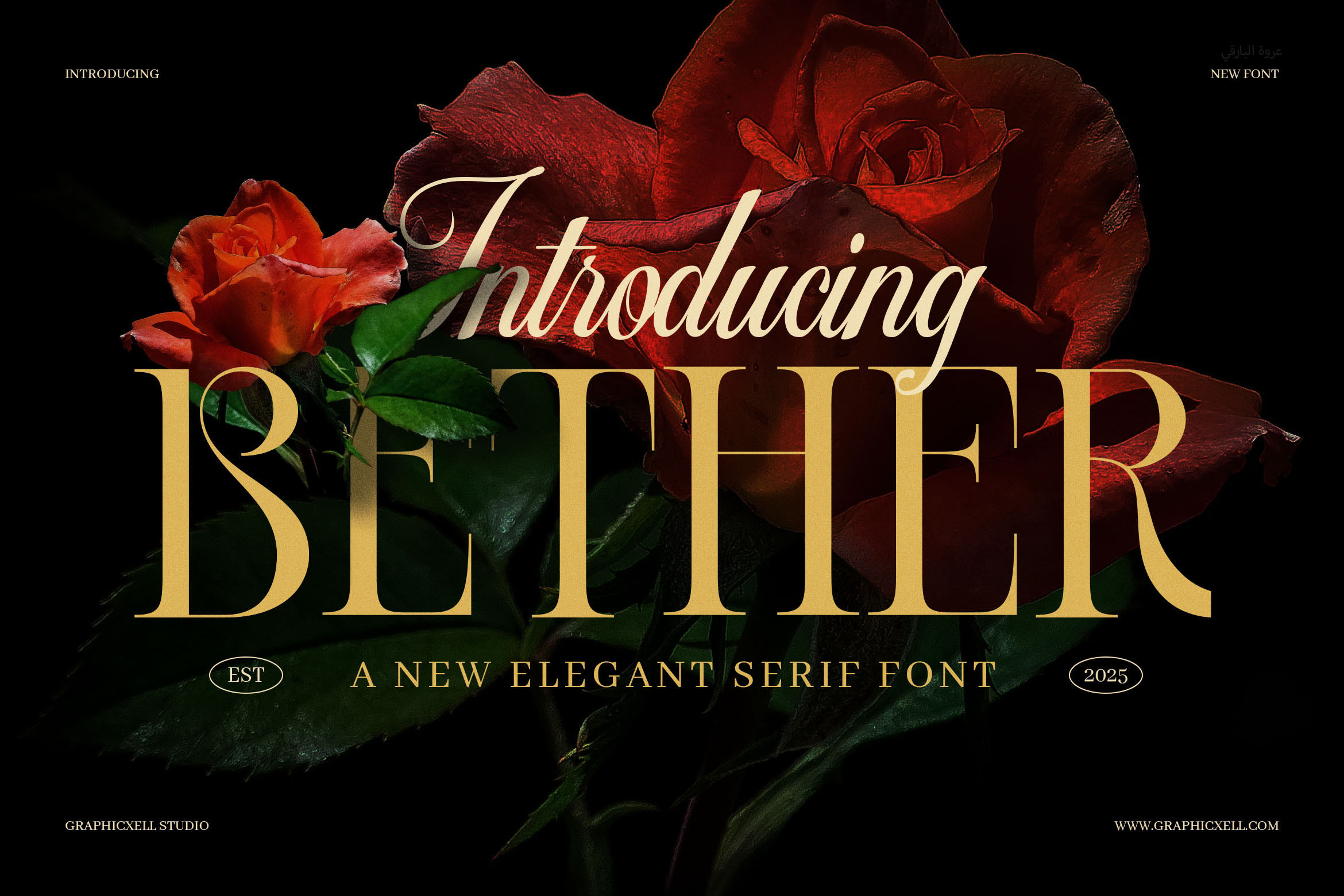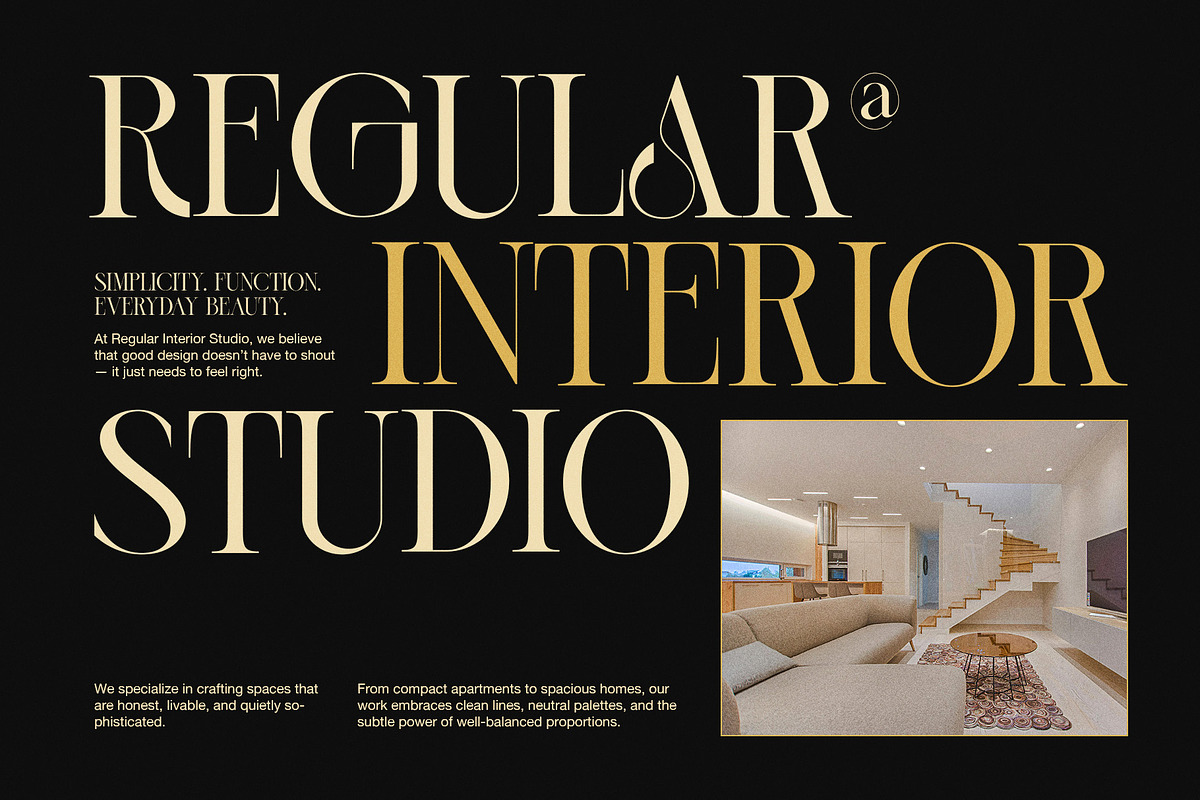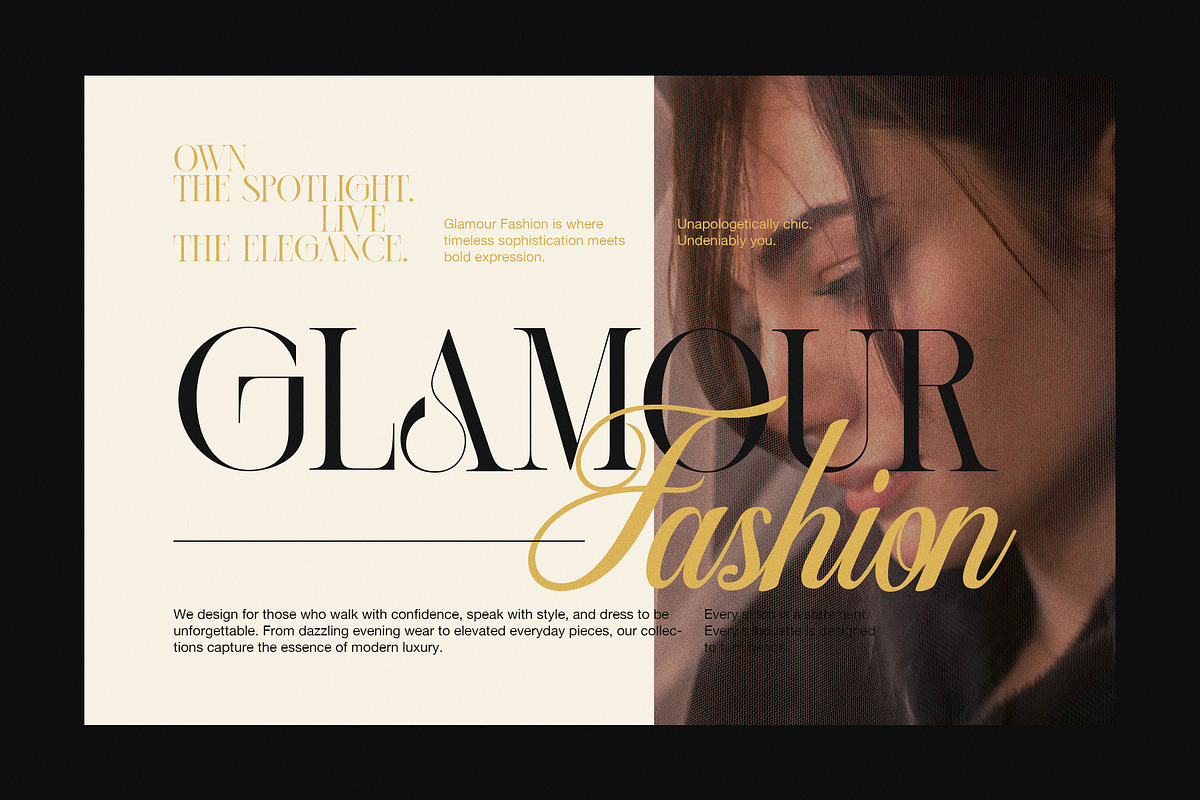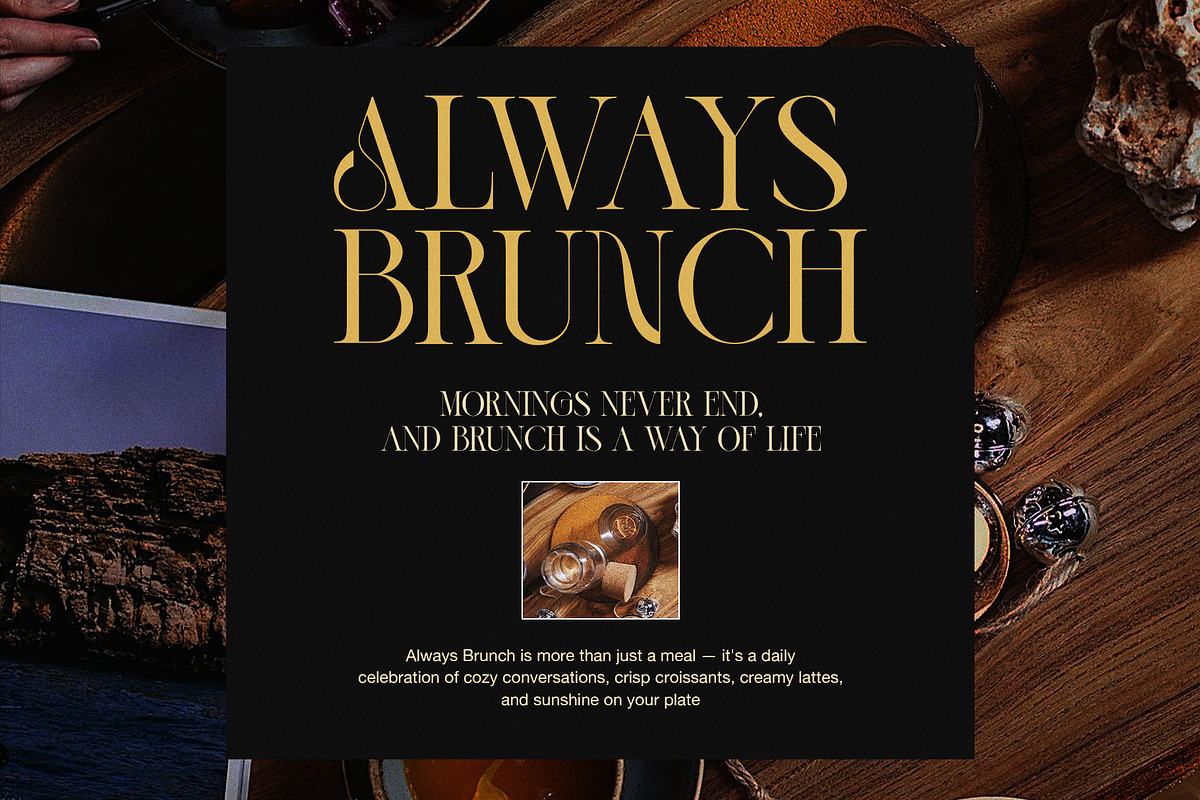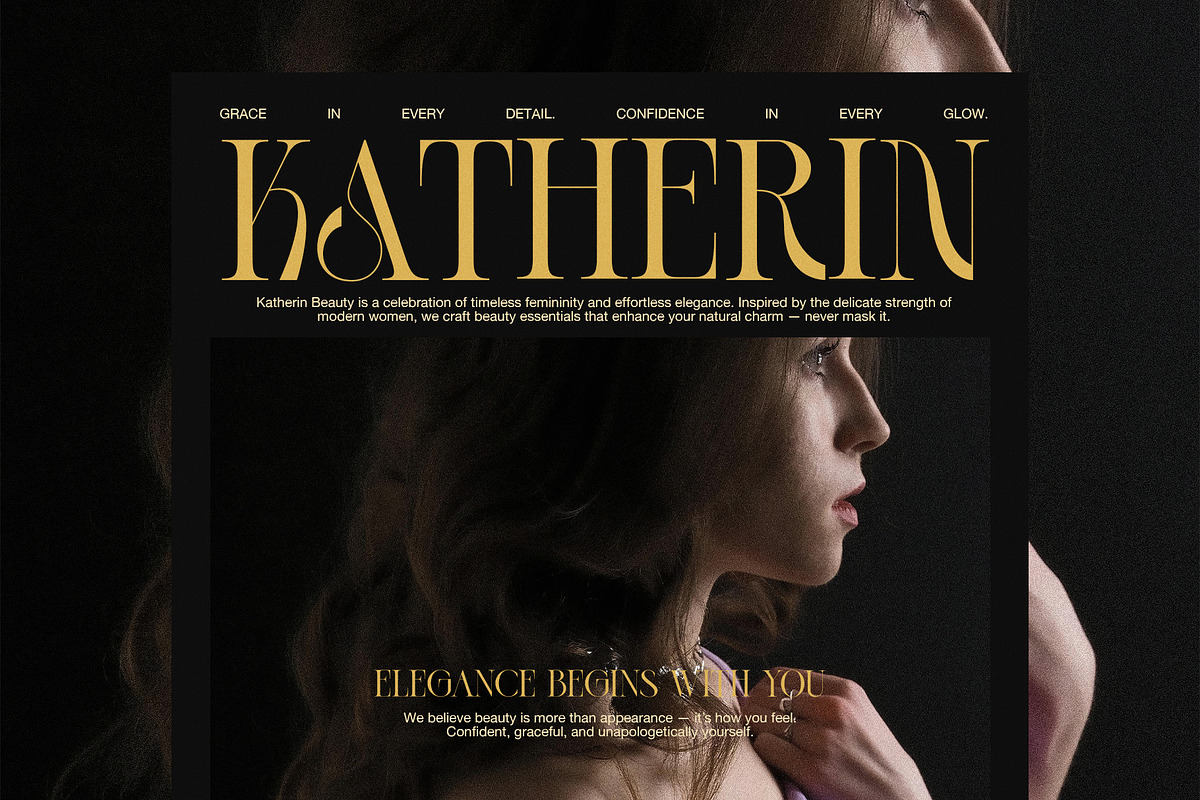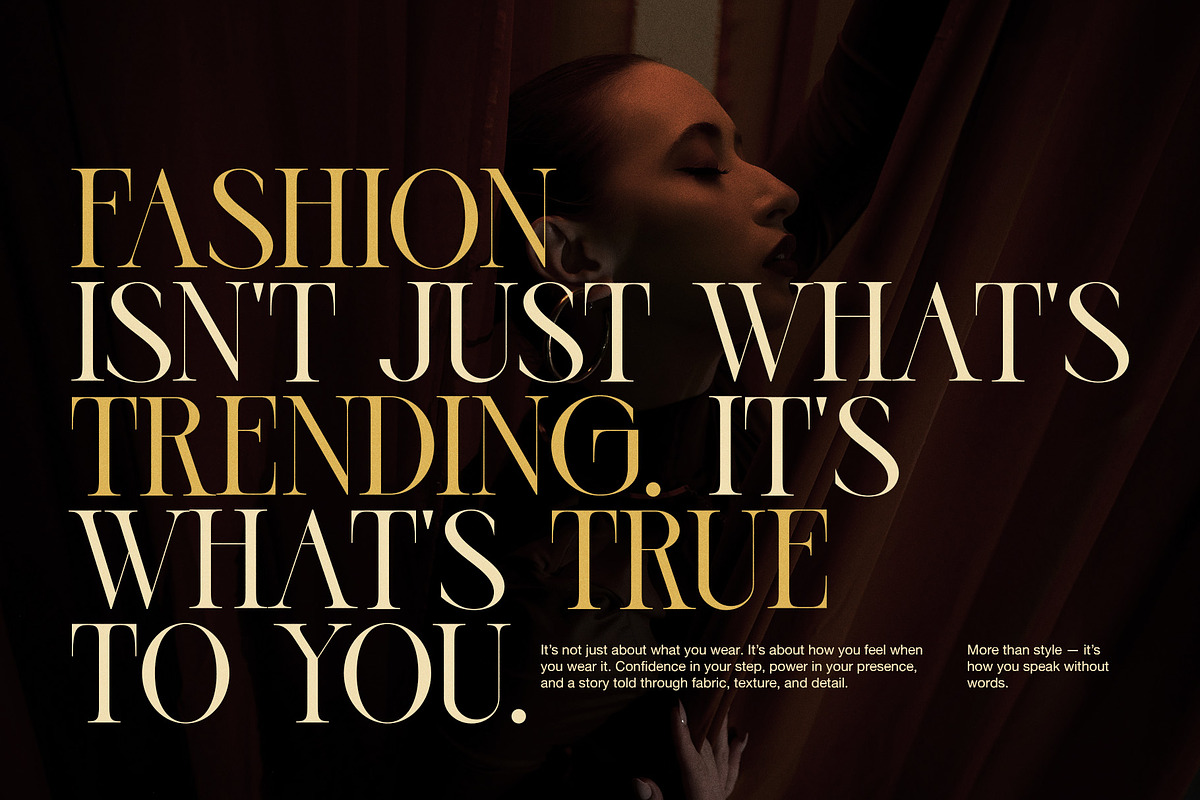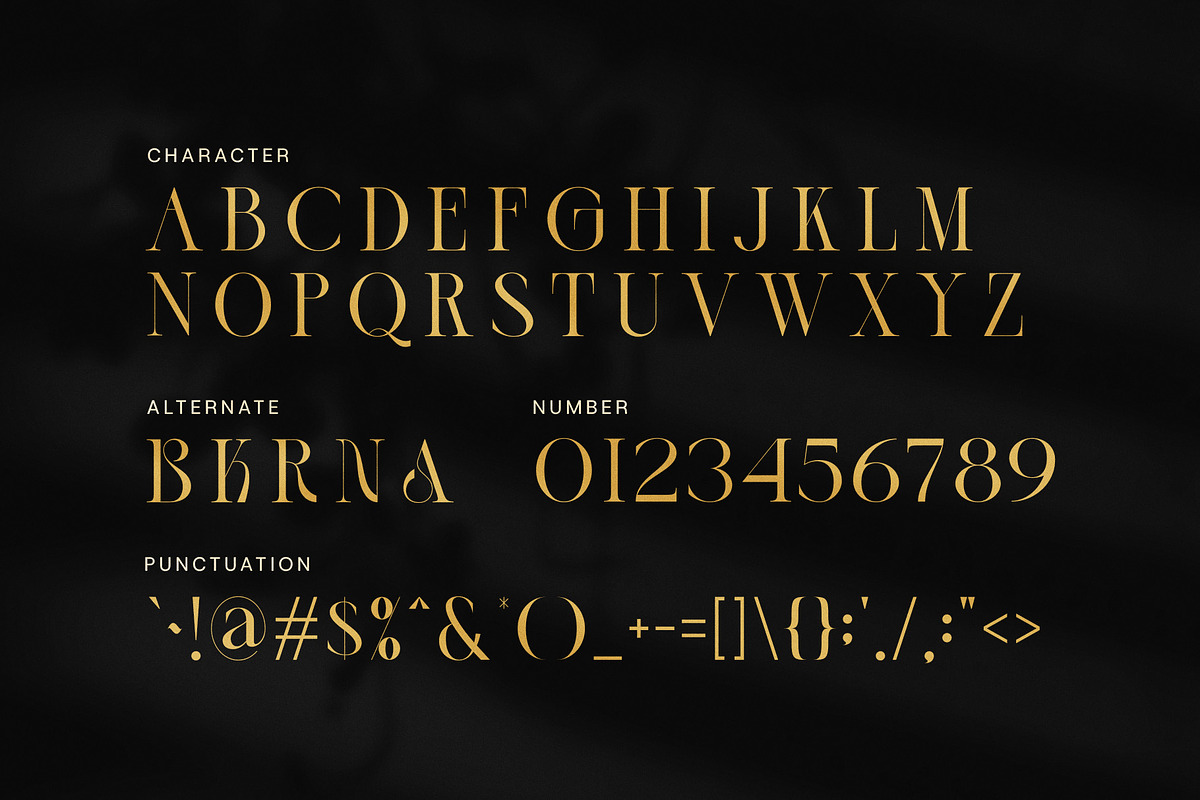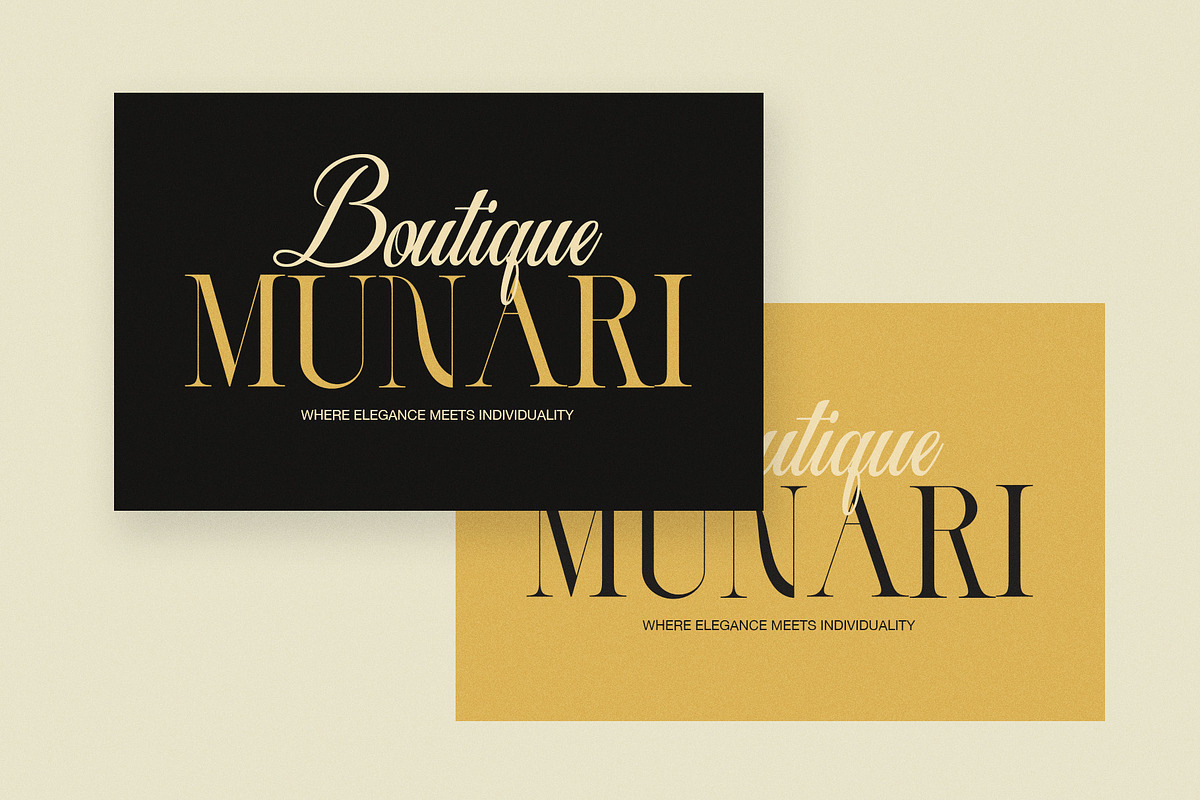
Bether Elegant Modern Serif Typeface
Bether Serif is a clean and modern serif font with soft edges and a timeless style. It’s perfect for logos, titles, websites, and more. This typeface mixes classic curves with a modern look, giving your designs a strong and stylish feel.
You can use this font in many ways. Whether you’re designing a fashion brand, a magazine layout, or a blog header, Bether Serif adds a touch of class. The sharp lines and soft curves work well in both big and small sizes. This makes it a good choice for headlines, quotes, and even short body text.
Here’s why designers love Bether Serif:
Simple yet stylish serif shapes
Clear and smooth lines for better reading
Easy to use in print or digital projects
Works well with modern or classic styles
First of all, the font feels strong and elegant. The serifs give it a soft, classic touch. Yet, it still feels new and fresh. You can use it for fashion, business, or personal work. It blends well with both bold and minimal designs.
Also, this font is very easy to work with. You can pair it with sans serif fonts or use it on its own. It stands out while staying easy to read. That means your design will look both stylish and clear.
In short, Bether Serif is a great mix of beauty and function. It gives your work a high-end look without being too fancy. If you want a font that looks modern but still feels warm and classic, this is the one to use.